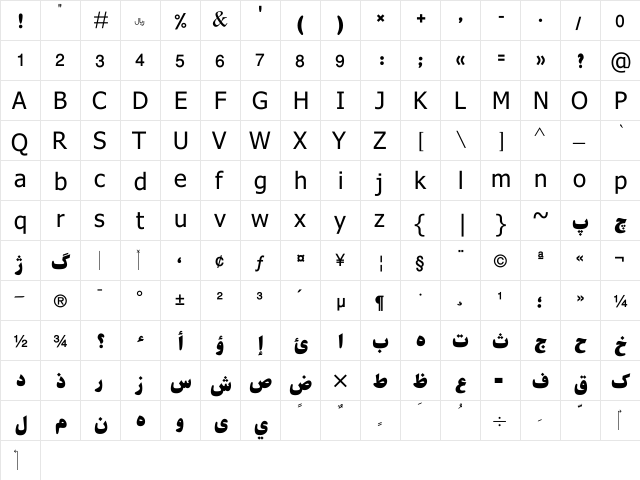
AGT Abdul Majeed Bold Bold
| Designer | Ahmad Gul Totakhyl |
Design Context for AGT Abdul Majeed Bold Typeface
AGT Abdul Majeed Bold offers clean, dependable letterforms without strong stylistic allegiance, making it a practical choice for designers who need flexibility. The heavy weight commands attention and anchors typographic hierarchies.